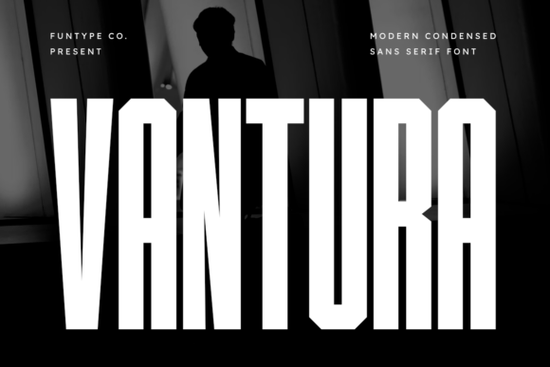
Looking for a bold condensed typeface that works well on merchandise, apparel, and digital posters? Vantura is a modern condensed sans serif font built with thick strokes, narrow geometry, and sharp chamfered corners. It's designed specifically for high-impact projects like streetwear branding, sports jerseys, vinyl decals, and event posters. If you sell custom products or design for clients who need a strong, industrial look, this font is worth a closer look.
What makes Vantura different from other condensed sans serif fonts?
Most condensed fonts go for either a clean, minimal look or a heavy, blocky style. Vantura sits in a specific middle ground it's ultra-narrow with geometric proportions, but the chamfered corners give it a slightly industrial, mechanical feel. The strokes are thick enough to read at large sizes on banners and jerseys, yet the narrow width means you can fit longer words and phrases without running out of space.
This combination makes it especially useful for projects where you need to pack a lot of visual weight into a tight layout. Think about a hoodie chest print, a sleeve design, or a tall vertical poster Vantura handles those scenarios naturally because of its height and narrow build.
Is this font a good fit for print-on-demand and merchandise?
Short answer: yes, if your products lean toward streetwear, sports, or urban branding. Here's why it works well for POD sellers and small businesses:
- Jersey and apparel designs The tall, condensed letterforms mimic the look of professional athletic type. It handles names, numbers, and team branding cleanly.
- Vinyl decals and screen prints Thick, solid strokes hold up well when cut on vinyl or burned onto screens. Thin, delicate fonts often cause problems with weeding or ink bleed. This one avoids that.
- Event posters and digital graphics Its aggressive, structured style grabs attention at poster size without needing extra effects or outlines.
- Logo work for urban and streetwear brands The geometric block layout gives logos a polished, professional edge without looking generic.
How does it compare to other bold sans serif options?
If you're building a font library for commercial design work, it helps to have a few different bold sans serifs on hand for different moods. Here's how Vantura stacks up against a few similar options:
Having a range of styles lets you match the right font to the right project. Vantura fills the bold, urban, high-impact slot that many POD sellers and brand designers need regularly.
- Pair it wisely Use a simple, clean secondary font for body text. Vantura's boldness works best when it has breathing room around it.